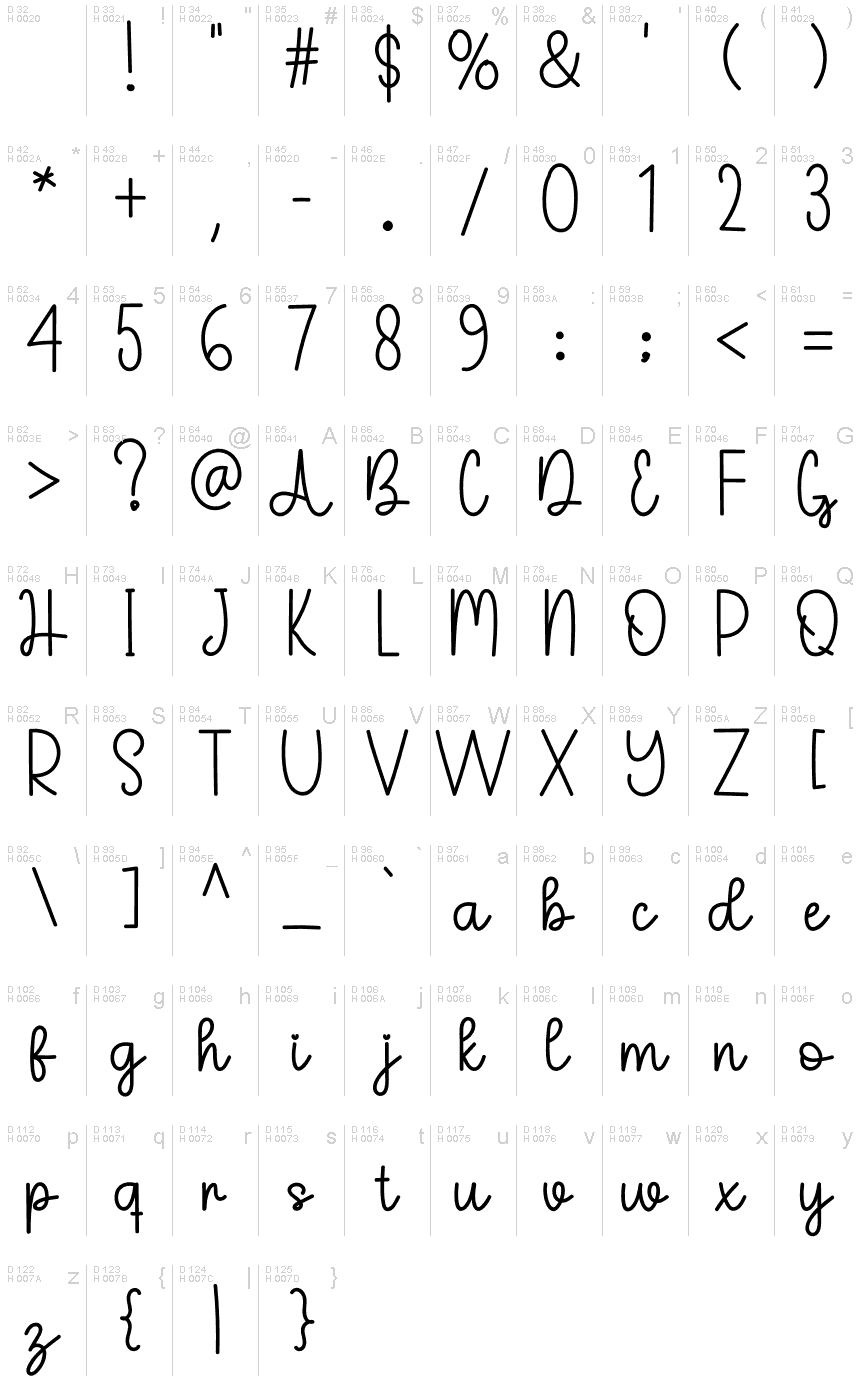
Joyboy
Joyboy, the handwritten semi-light font by Belina Studio, is here to add a touch of whimsy to your creative projects. Ideal for wedding invitations, greeting cards, and social media graphics, this playful typeface brings a sense of warmth and personality to any design. Joyboy's delicate strokes and charming curves make it perfect for conveying heartfelt messages or bringing attention to important details. Whether you're creating a logo or designing a website, Joyboy's unique style will make your project stand out from the crowd. Give your designs a little extra joy with Joyboy!
the latest style letters are perfect for wall displays, wedding invitations, social media post logos, advertisements, product packaging, product designs, labels, photography, watermarks, invitations, stationery, and any project that requires taste handwriting.